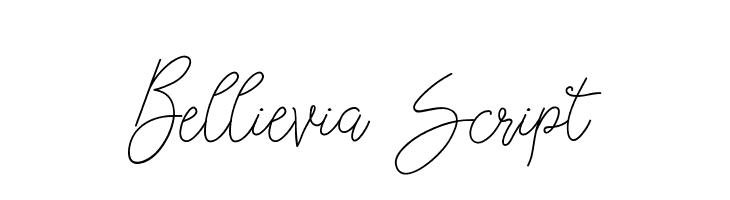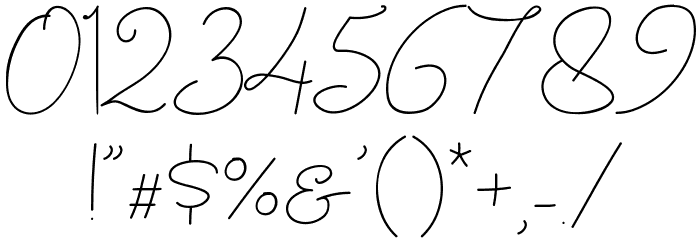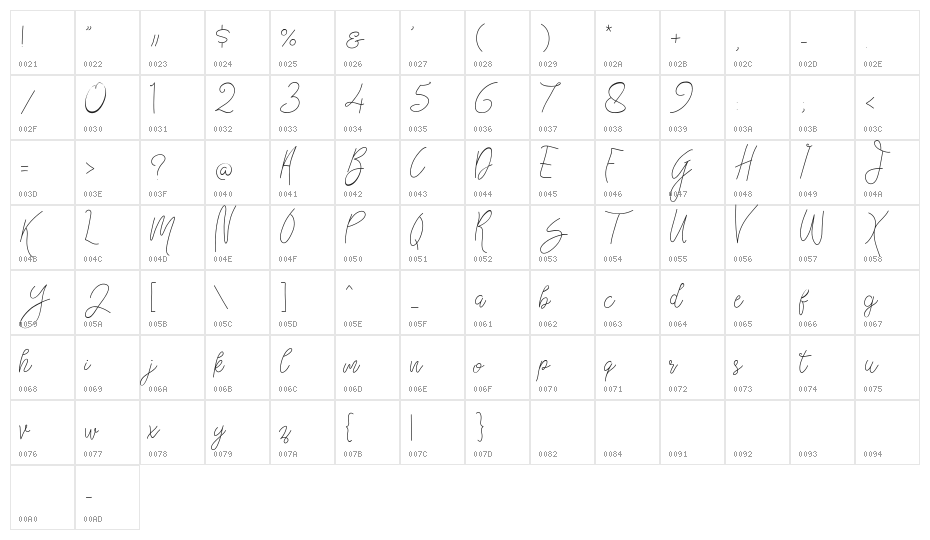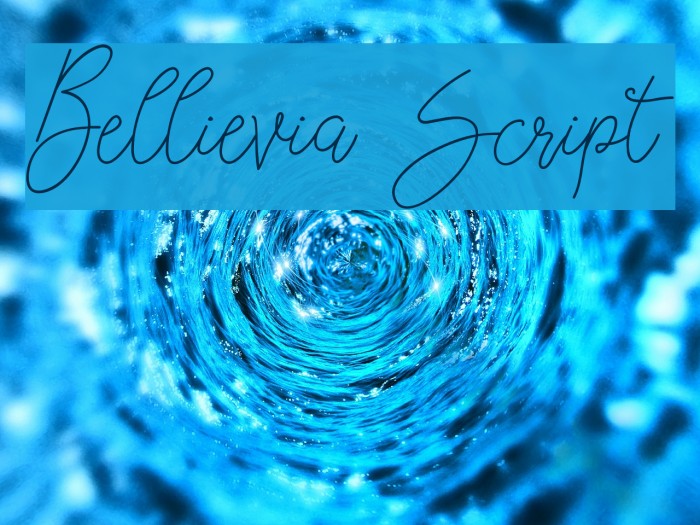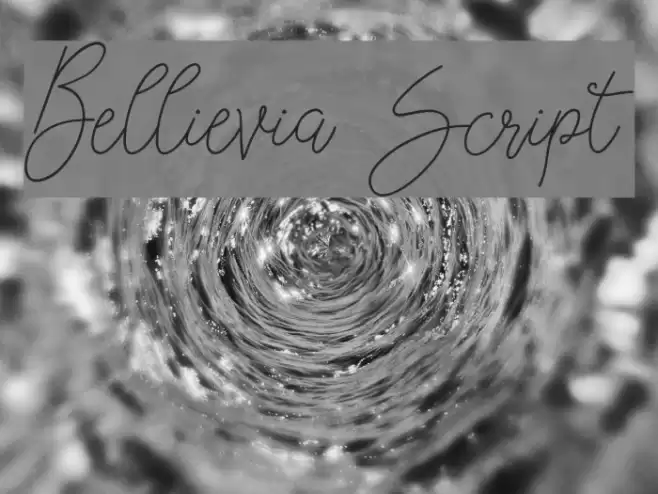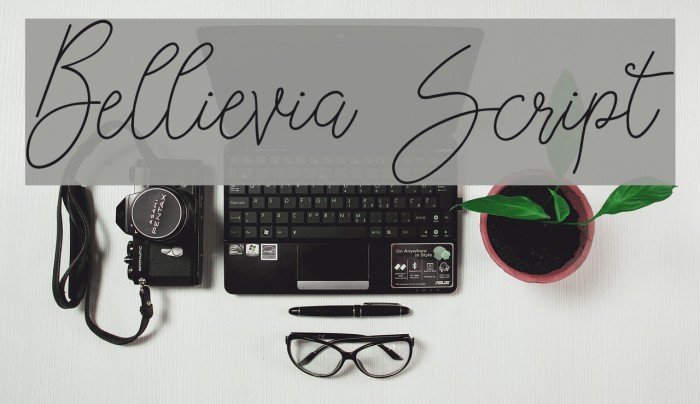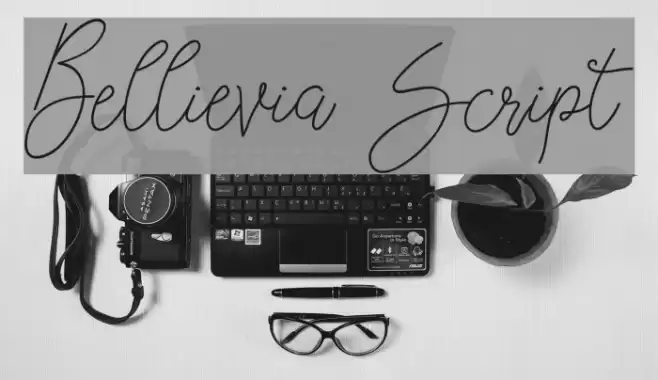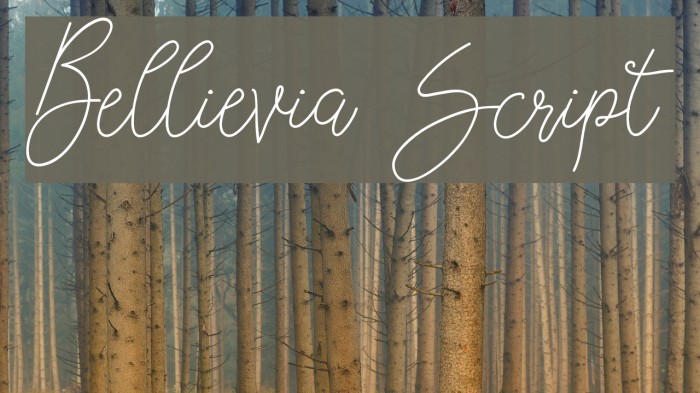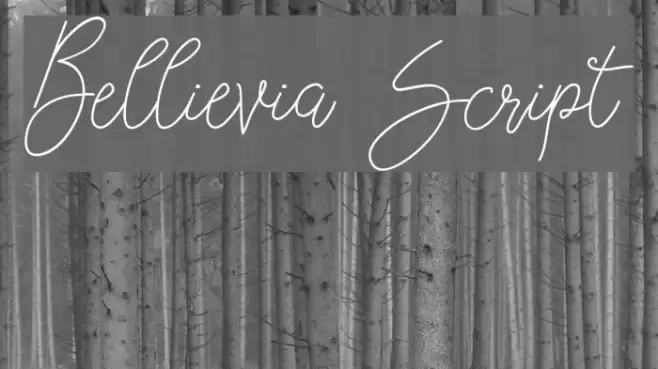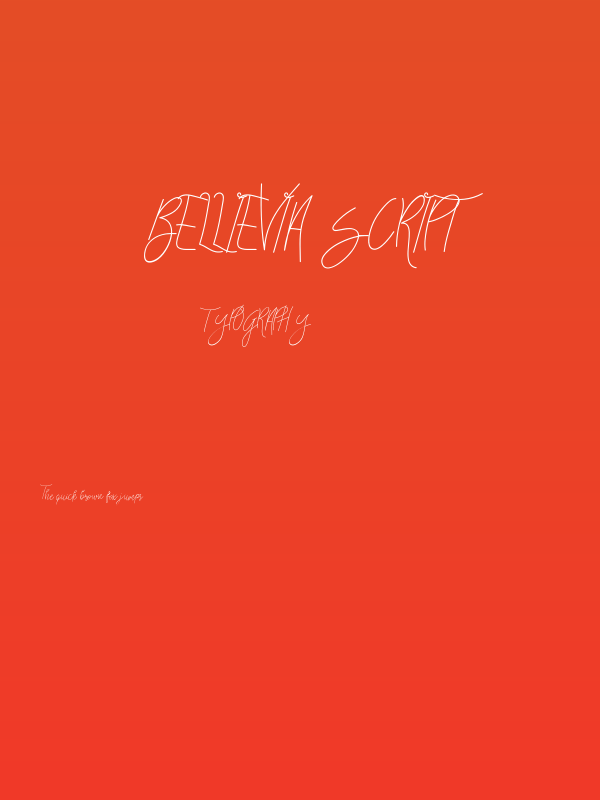
Bellievia Script Font
Bellievia Script Description
This elegant script font features a flowing, cursive style with graceful, elongated strokes. The uppercase letters are particularly ornate, with sweeping lines and loops that give a sense of movement and fluidity. The lowercase letters maintain a consistent style, with smooth connections between characters that enhance readability while preserving the decorative nature of the font. The numerals are designed to match the script's aesthetic, with curves and loops that integrate seamlessly with the overall design. Special characters are included, maintaining the same elegant style, making this font versatile for various uses.
| Use Case | Invitations, Branding, Signatures |
| Proposed Projects | Ideal for wedding invitations, elegant branding, personal signatures, and decorative headings. |